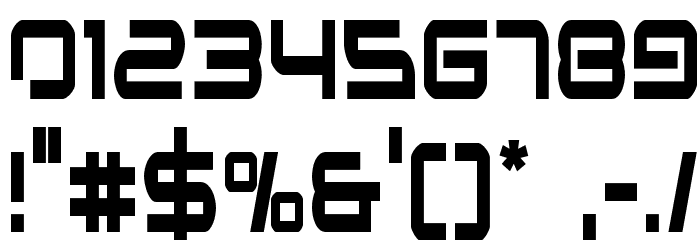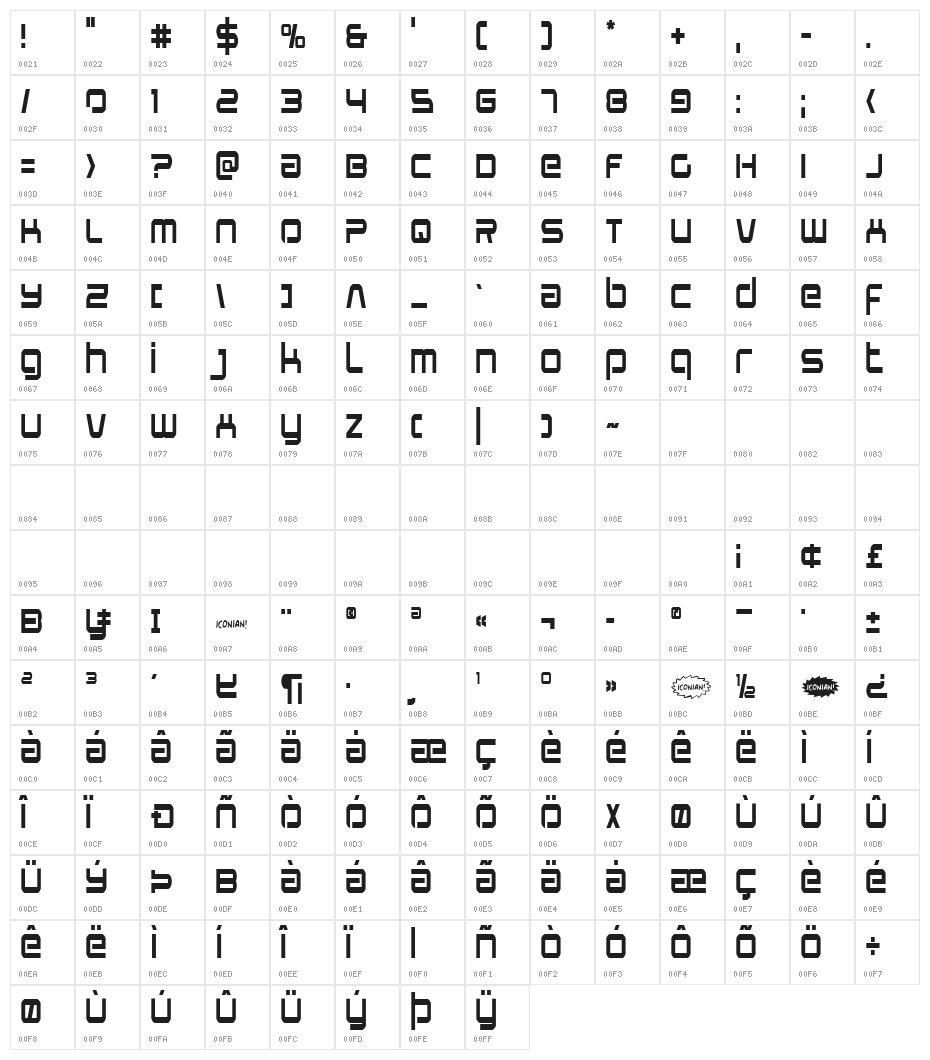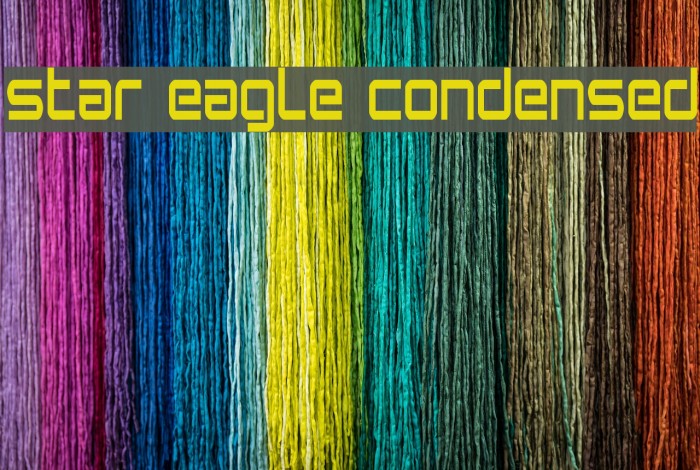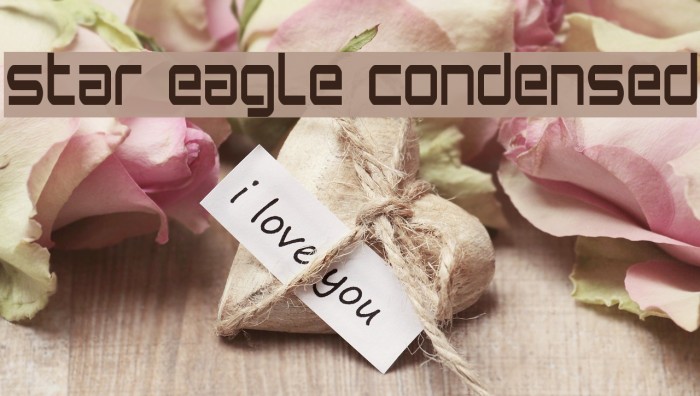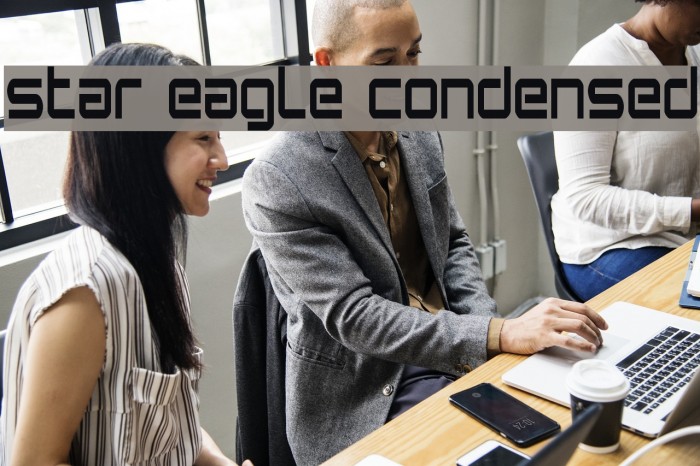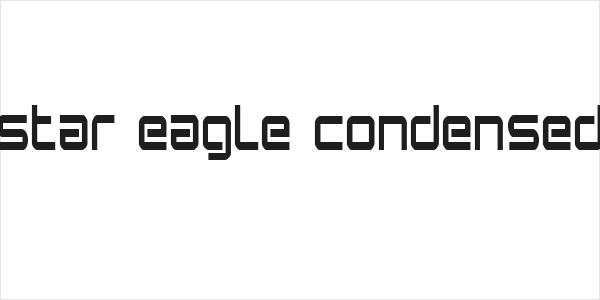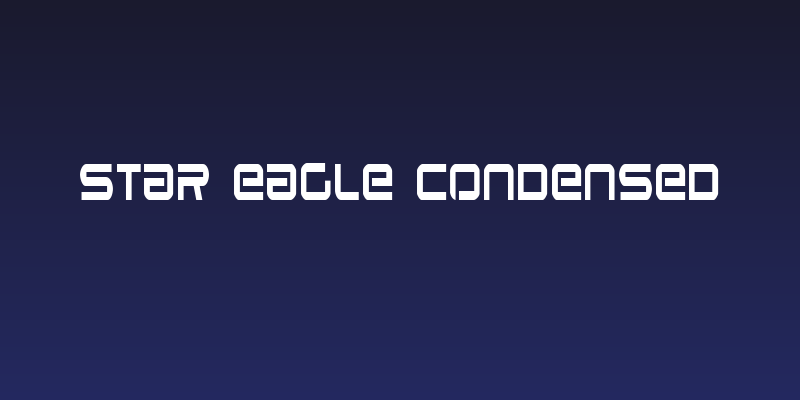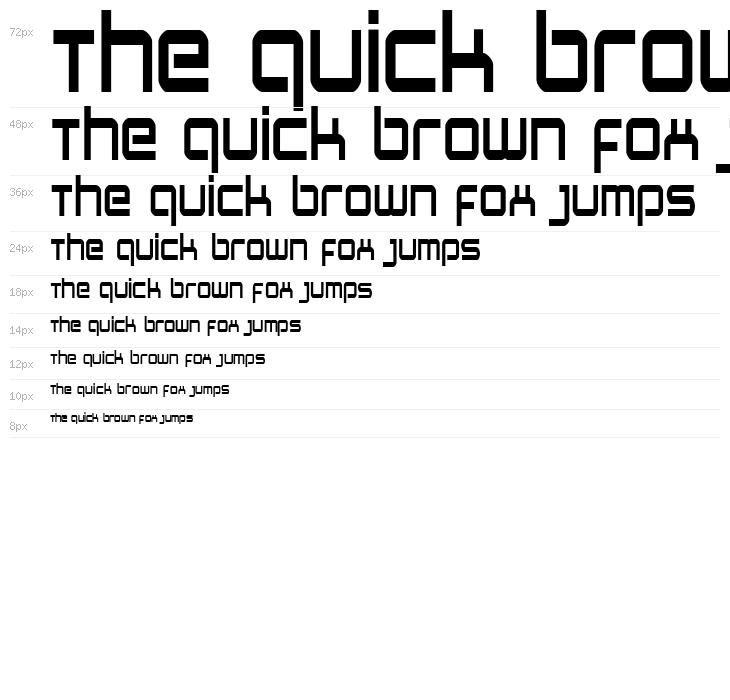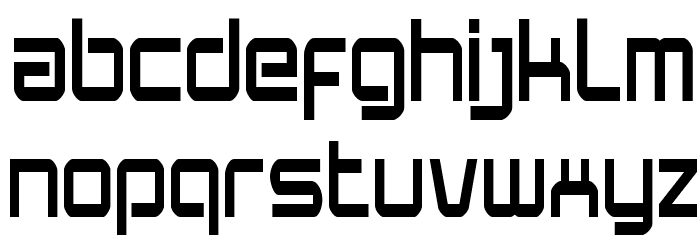
Star Eagle Condensed Font
Star Eagle Condensed Description
This font features a bold, geometric design with a futuristic and tech-inspired aesthetic. The characters are condensed, providing a compact and efficient use of space. The straight lines and sharp angles give it a modern and sleek appearance, making it ideal for projects that require a strong visual impact. The uniform stroke width across all characters contributes to a cohesive and structured look. Its distinct style is suitable for headlines, posters, and branding materials that aim to convey innovation and forward-thinking.
| Proposed Projects | Ideal for technology branding, sci-fi themed designs, modern posters, and innovative product packaging. |